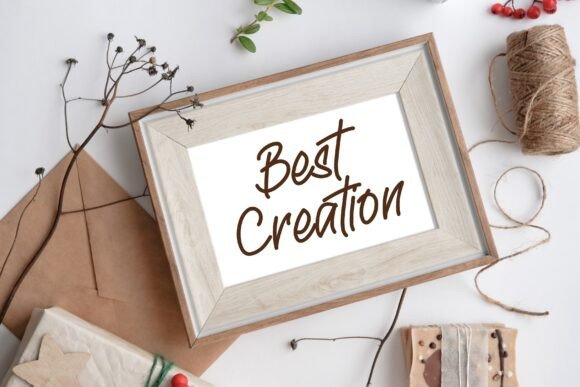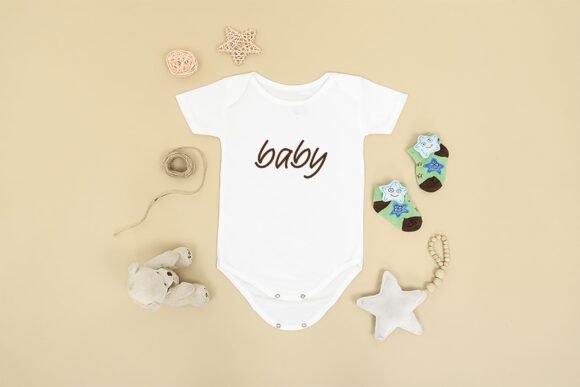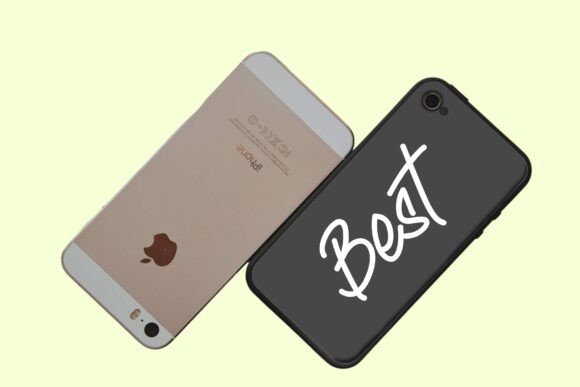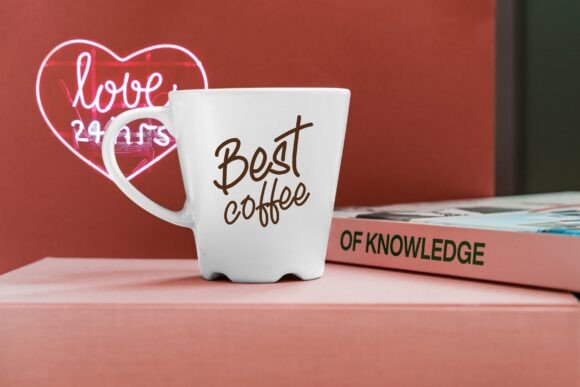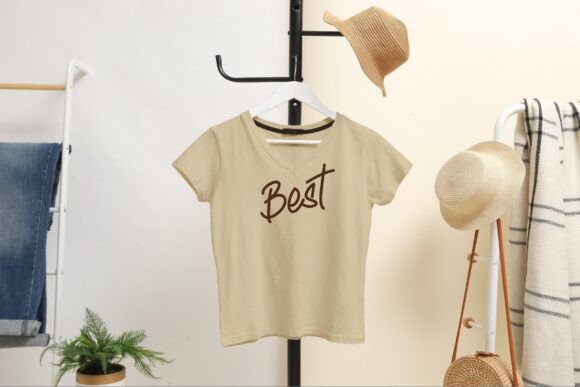
Introducing Farmhouse Font: Elevate Your Craft Projects with Elegance and Whimsy
Are you a crafter, designer, or DIY enthusiast looking for a font that adds a touch of sophistication and playfulness to your projects? Look no further than Farmhouse Font, a stylish and bouncy typeface that’s perfect for custom craft projects. With its elegant design and whimsical flair, Farmhouse Font is sure to give your creations a personalized and beautiful touch.
Farmhouse Font is a unique and eye-catching typeface that’s designed to bring a sense of elegance and sweetness to your craft projects. Its bouncy and playful design makes it perfect for a wide range of applications, from handmade cards and invitations to DIY signs and decor. Whether you’re a seasoned crafter or just starting out, Farmhouse Font is a versatile and user-friendly choice that’s sure to inspire your creativity.
- Elegant Design: Farmhouse Font boasts an elegant and refined design that’s perfect for crafters who want to add a touch of sophistication to their projects.
- Bouncy and Playful: With its bouncy and playful curves, Farmhouse Font adds a whimsical touch to any project, making it perfect for crafters who want to create something truly unique.
- Personalized Touch: Farmhouse Font gives your craft projects a personalized touch, making them perfect for special occasions, gifts, or everyday decor.
- Versatile: Farmhouse Font is a versatile typeface that can be used for a wide range of craft projects, from paper crafting and card making to DIY signs and decor.
Why Choose Farmhouse Font?
So why choose Farmhouse Font for your craft projects? Here are just a few reasons:
- Adds a Touch of Elegance: Farmhouse Font adds a touch of elegance and sophistication to any project, making it perfect for crafters who want to create something truly special.
- Unique and Eye-Catching: Farmhouse Font is a unique and eye-catching typeface that’s sure to make your craft projects stand out from the crowd.
- Perfect for Customization: Farmhouse Font is perfect for customizing your craft projects, whether you’re making handmade cards, invitations, or DIY decor.
Ideas for Using Farmhouse Font
Here are just a few ideas for using Farmhouse Font in your craft projects:
- Handmade Cards: Use Farmhouse Font to create beautiful and personalized handmade cards for special occasions.
- DIY Signs: Add a touch of elegance to your DIY signs with Farmhouse Font, perfect for decorating your home or giving as gifts.
- Invitations: Use Farmhouse Font to create custom invitations for weddings, parties, and other special events.
- Paper Crafting: Farmhouse Font is perfect for paper crafting projects, such as scrapbooking and card making.